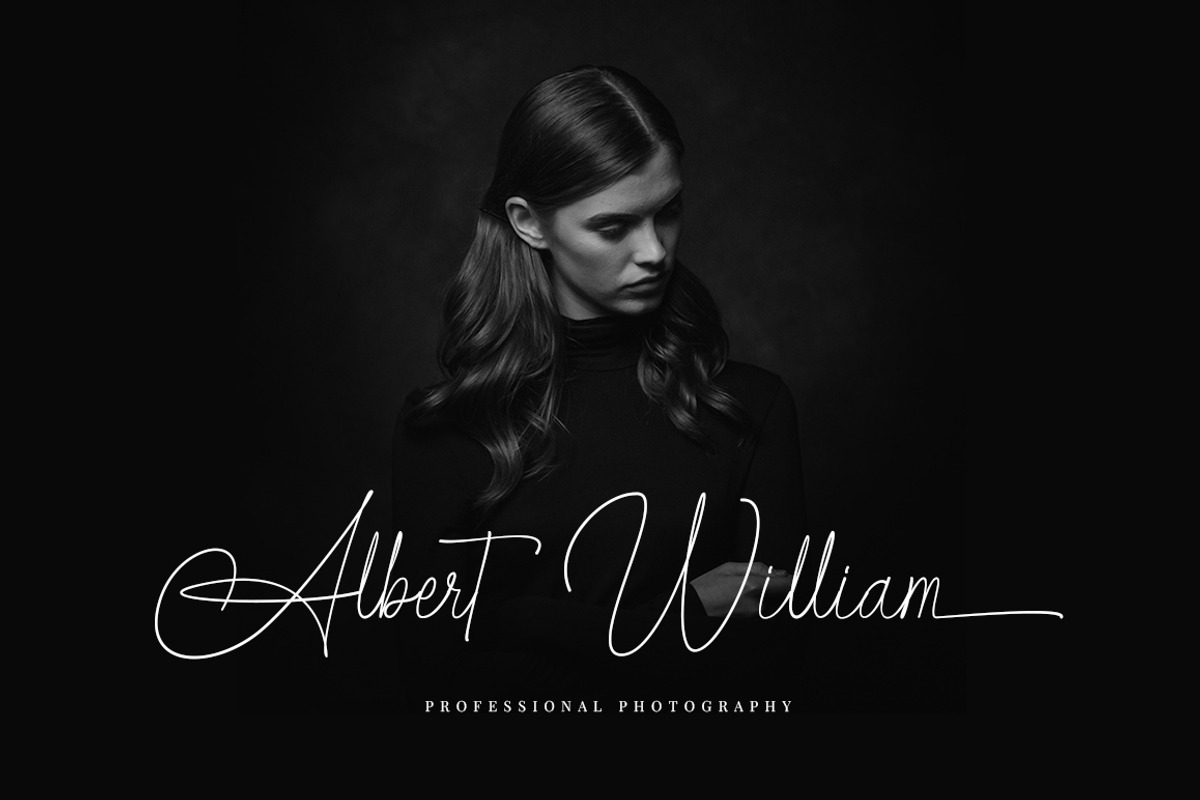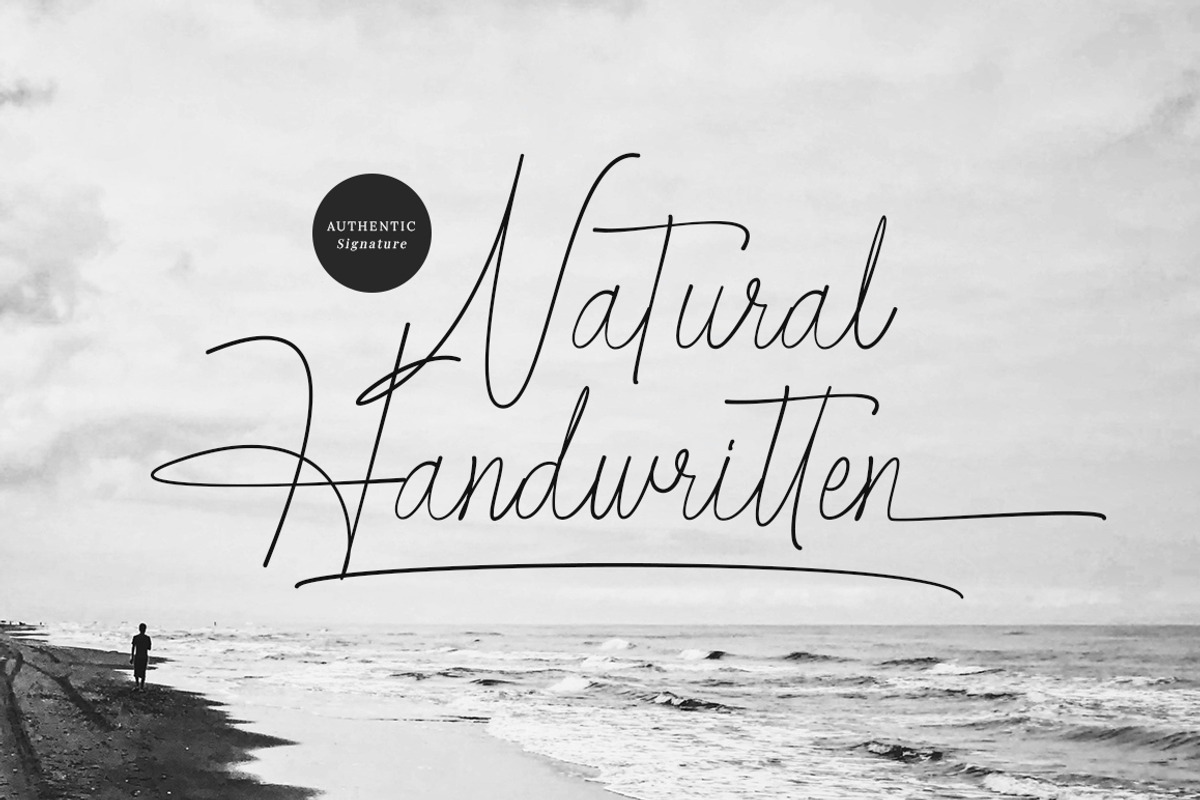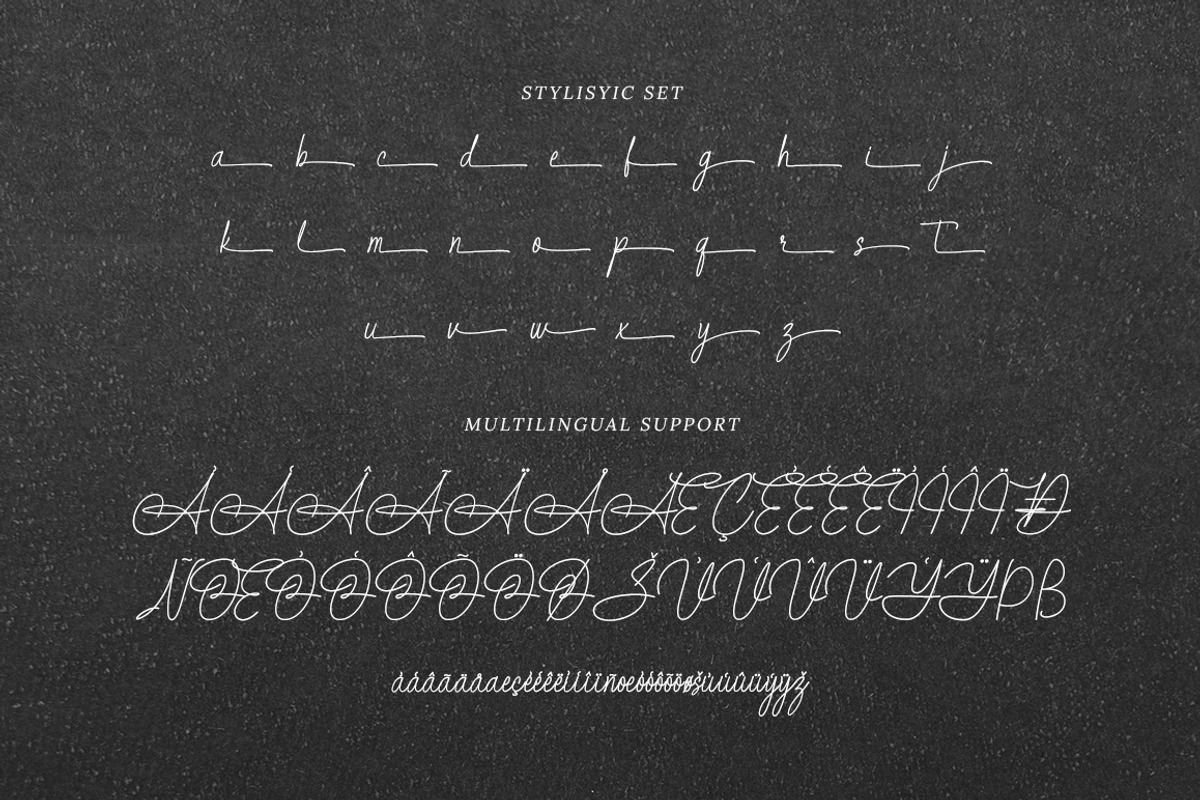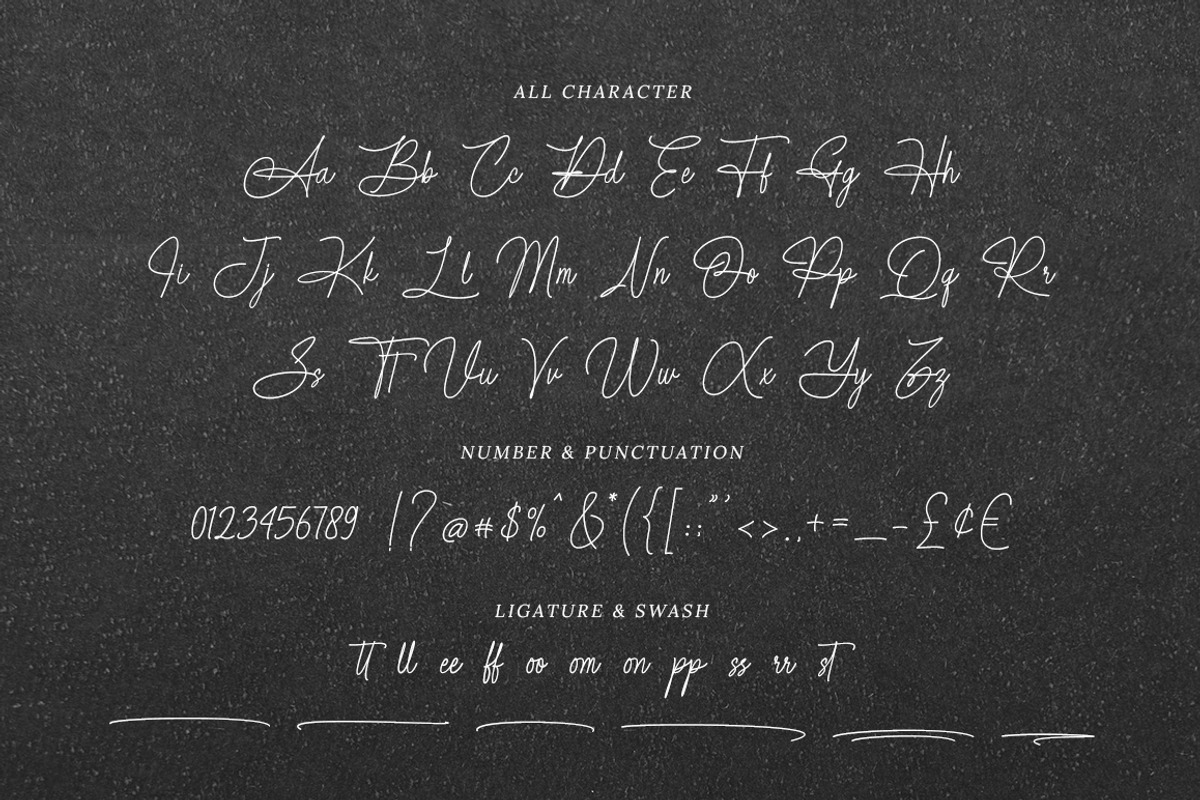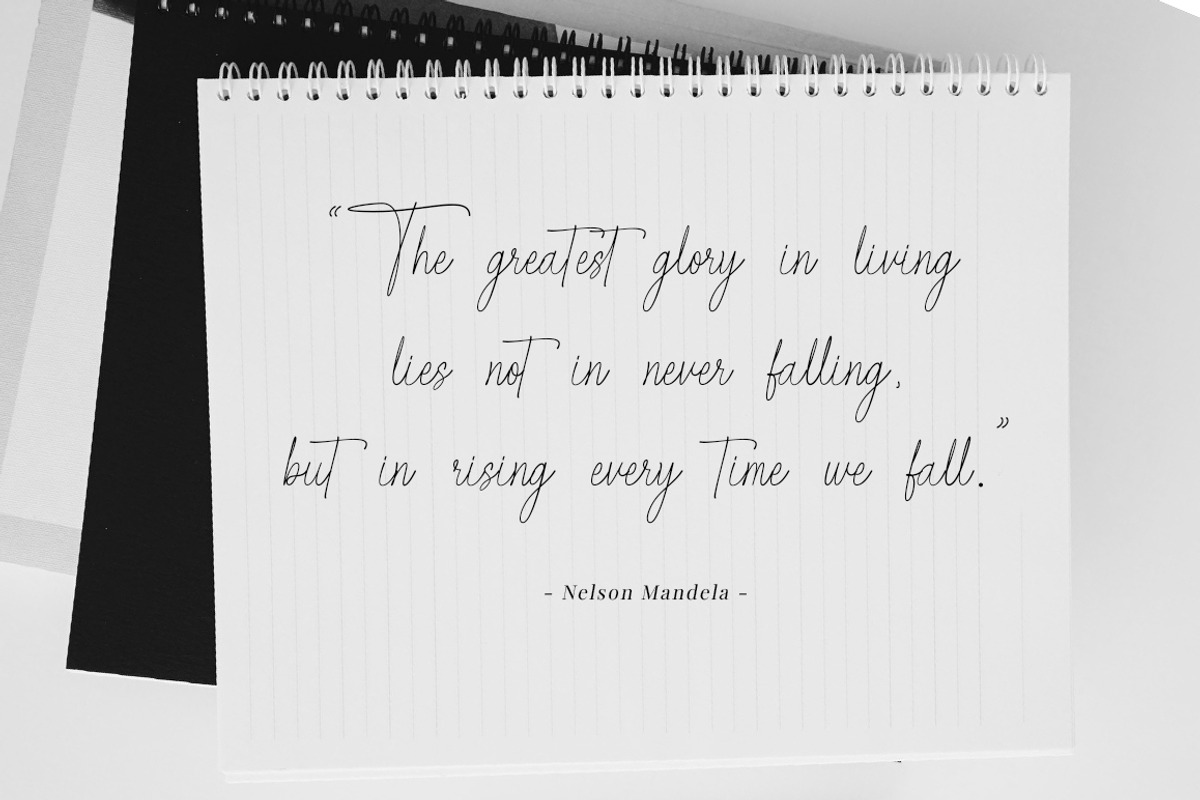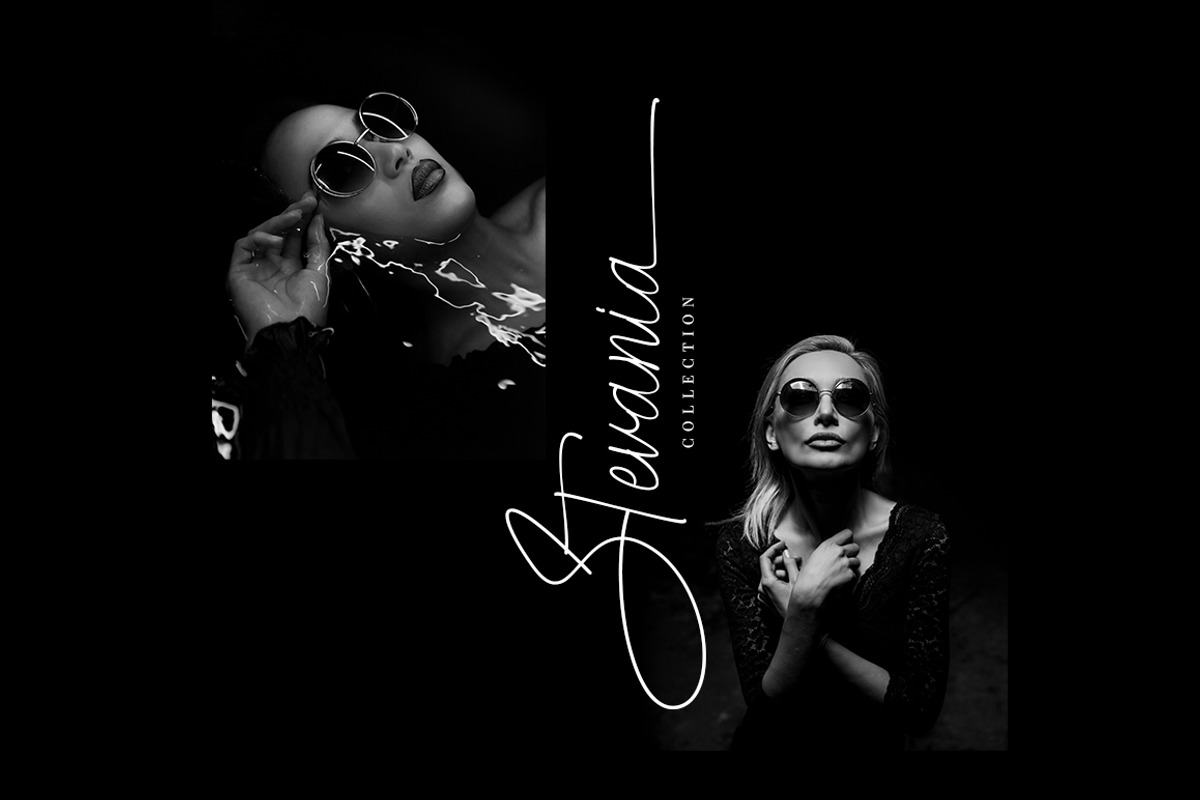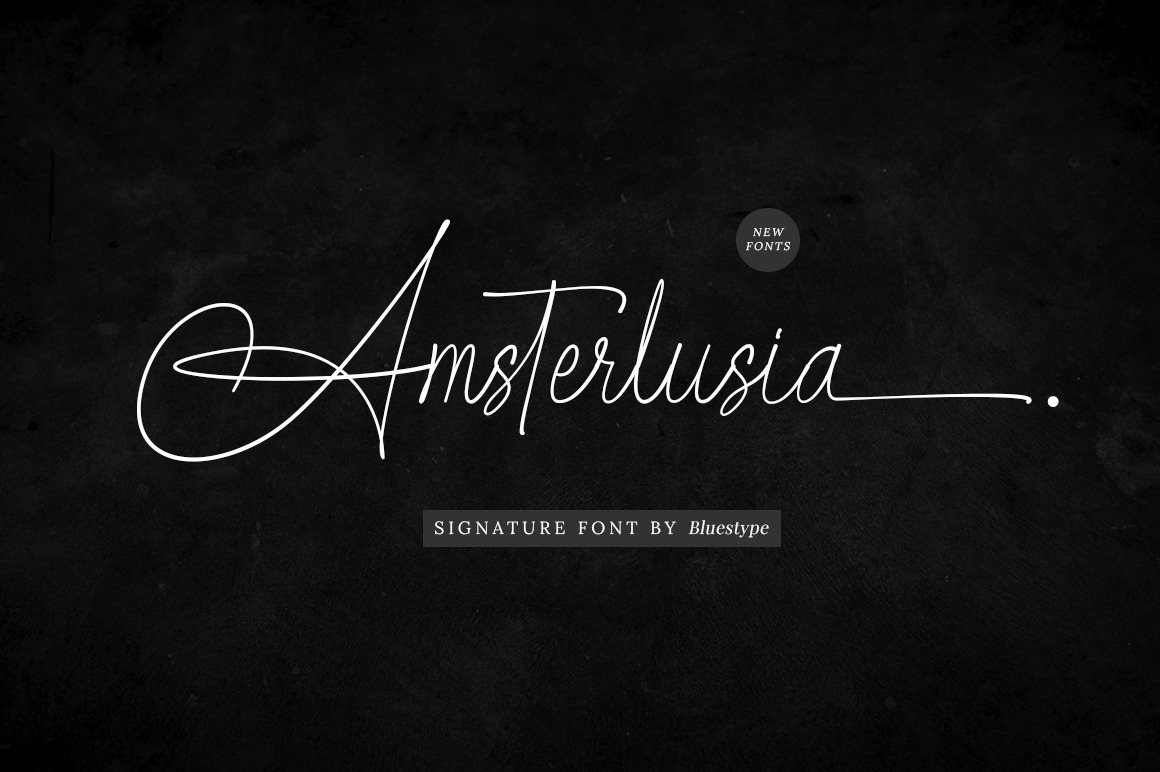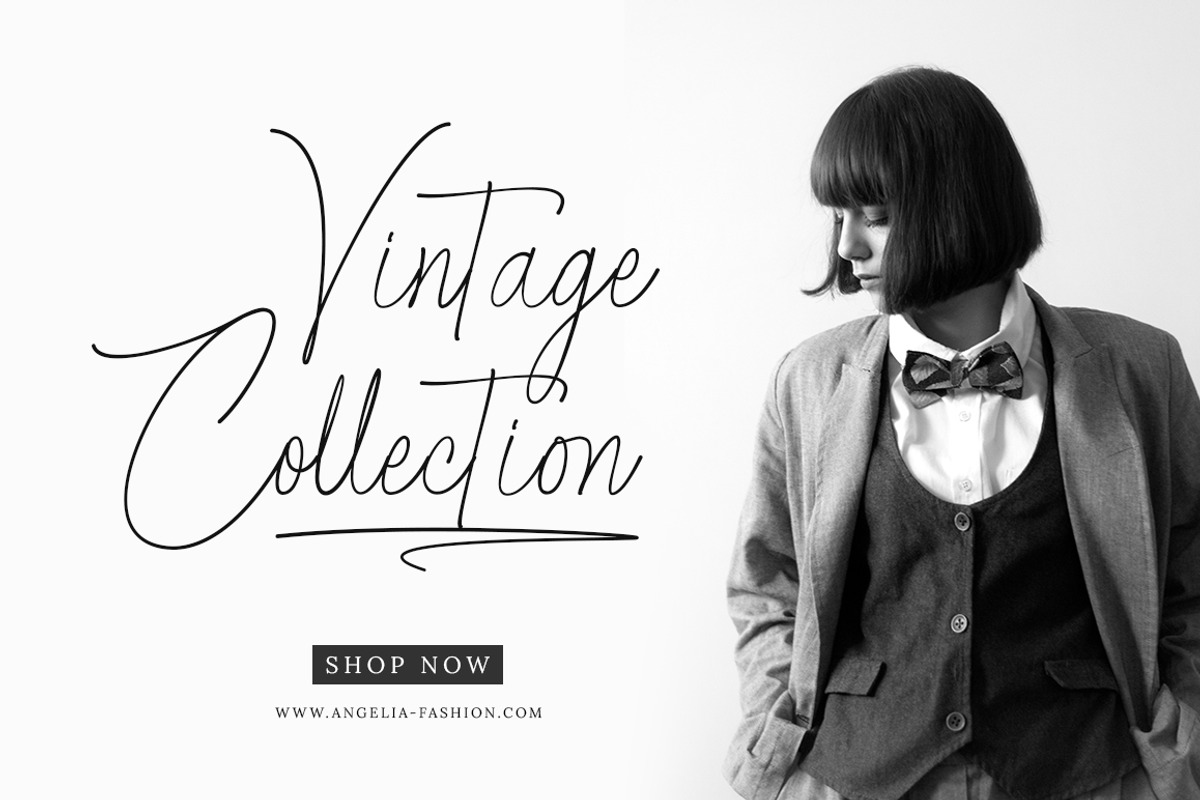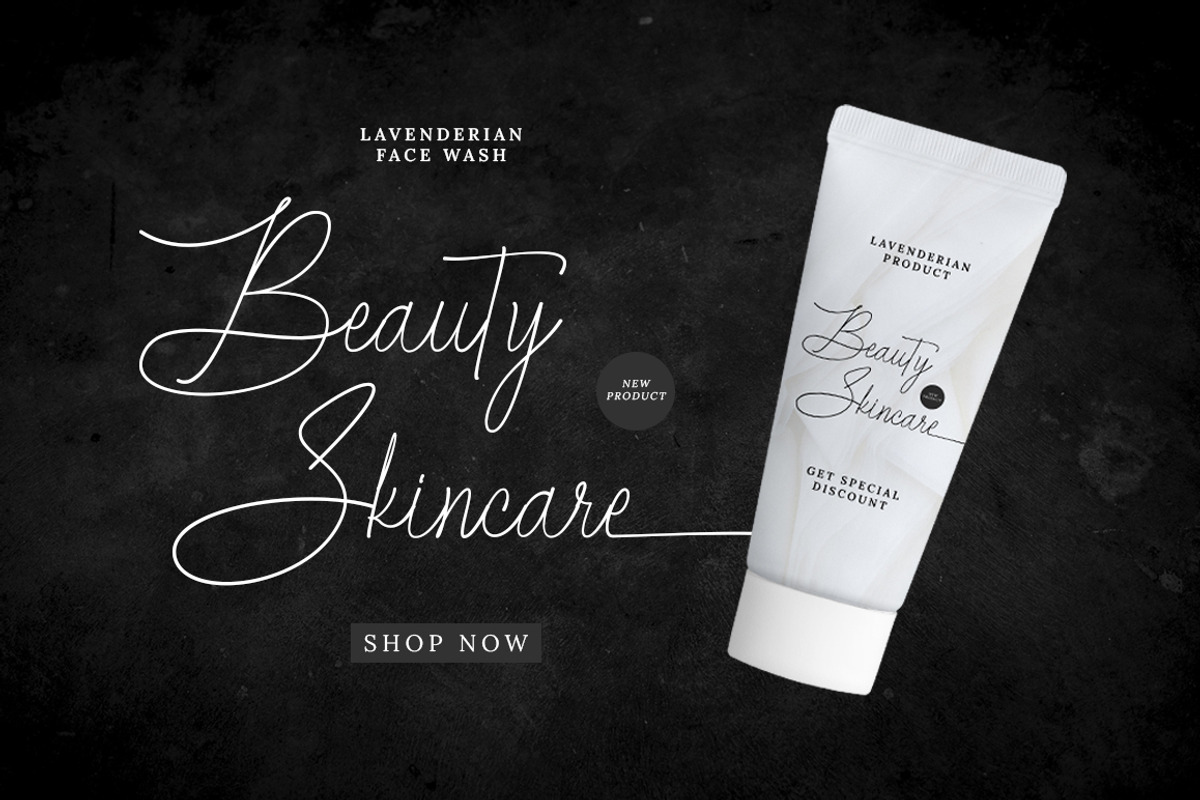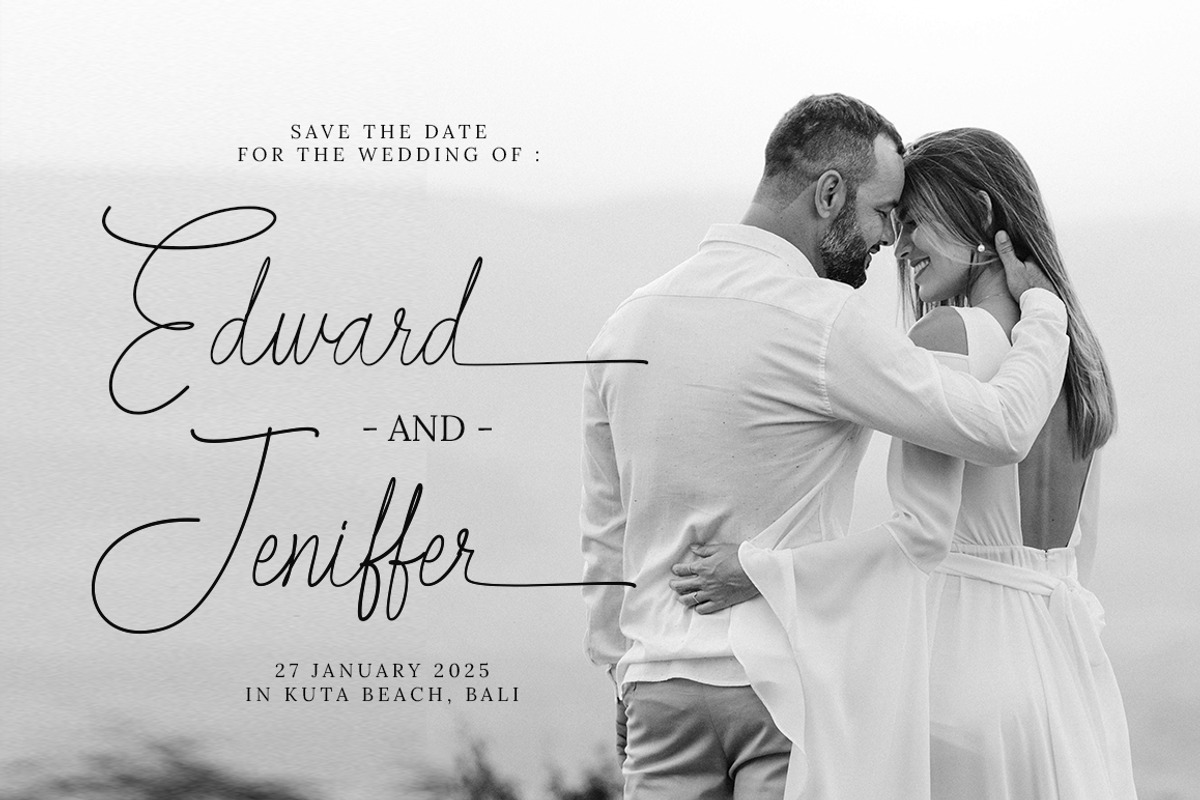
Amsterlusia - Signature Fonts
Introducing Amsterlusia: The Signature Handwriting Font That Exudes Elegance and Charm
Step into a world of timeless elegance with Amsterlusia, the exquisite font that beautifully captures the essence of handwritten signature and calligraphic artistry. Designed to infuse your projects with a touch of personal flair and sophistication, Amsterlusia is perfect for those who seek to make a lasting impression.
Ideal for branding, logos, invitations, greeting cards, and any project that demands a sophisticated handwritten feel, Stand out from the crowd with a font that feels uniquely yours. Amsterlusia’s distinctive style brings a personal and heartfelt touch to any project.
- Ligature Set
- Stylistic Set
- Swash Character
- Support Multilingual Languange